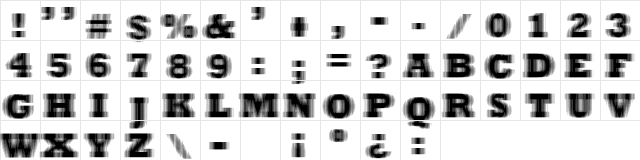
ExtraBlur Regular
Designer: Imagex
Design Context for ExtraBlur
ExtraBlur is a composed and adaptable typeface that performs quietly and consistently across a wide range of design contexts.
Pro Tip: Use ExtraBlur in both headline and body roles to test its range before committing to a single application.